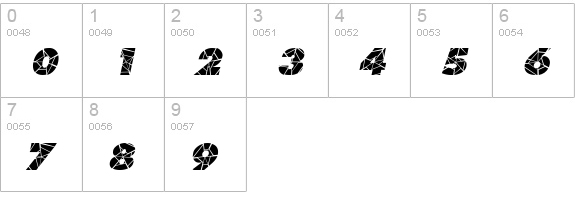
Shatter Italic Font Details
Shatter Italic is a distinctive, italic variant in the Shatter typeface family \xE2\x80\x94 well suited to design and typography projects.
Introducing Shatter Italic font, a bold and captivating typeface designed to make a lasting impression. With its unique and edgy character, this font breaks the mold and adds a touch of unconventional style to any design project. Shatter Italic font is a perfect choice for those who dare to be different. Its sharp and jagged letterforms exude a sense of dynamism and strength, making it ideal for headlines, logos, posters, and other eye-catching designs. Whether you're aiming for a striking visual impact or seeking to convey a rebellious spirit, Shatter Italic font is your go-to solution. But what sets Shatter Italic font apart is not just its remarkable aesthetics. It is also a font that empowers creativity by being freely available to download at FontsMarket.com. Yes, you heard it right - Shatter Italic font is completely free! This means that you can elevate your design projects without worrying about any additional costs. Now, you can unleash your imagination and experiment with this extraordinary font without any limitations. Moreover, Shatter Italic font is not just visually stunning, but also highly versatile. It supports a wide range of languages, ensuring that your message can reach audiences around the globe. Its legibility and readability remain intact, regardless of the size or medium of your design. So why settle for ordinary when you can shatter boundaries with Shatter Italic font? Download it for free at FontsMarket.com and embark on a creative journey that will leave a lasting impact. Let your designs break the mold and captivate the world with the bold and fearless nature of Shatter Italic font.